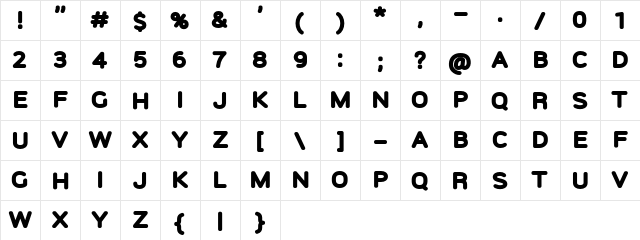
Figno Regular
| Designer | iordanis passas |
Design Context for Figno Typeface
Figno offers clean, dependable letterforms without strong stylistic allegiance, making it a practical choice for designers who need flexibility.